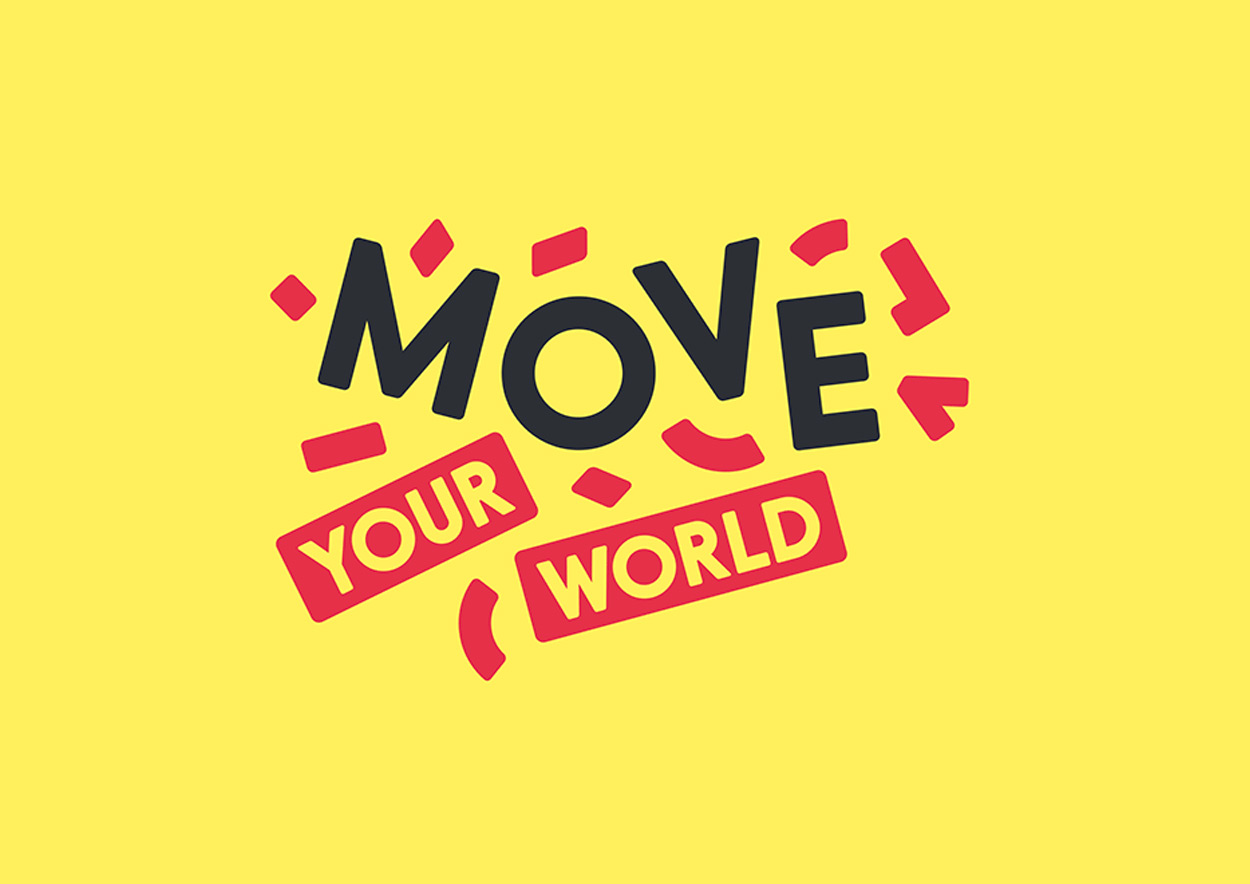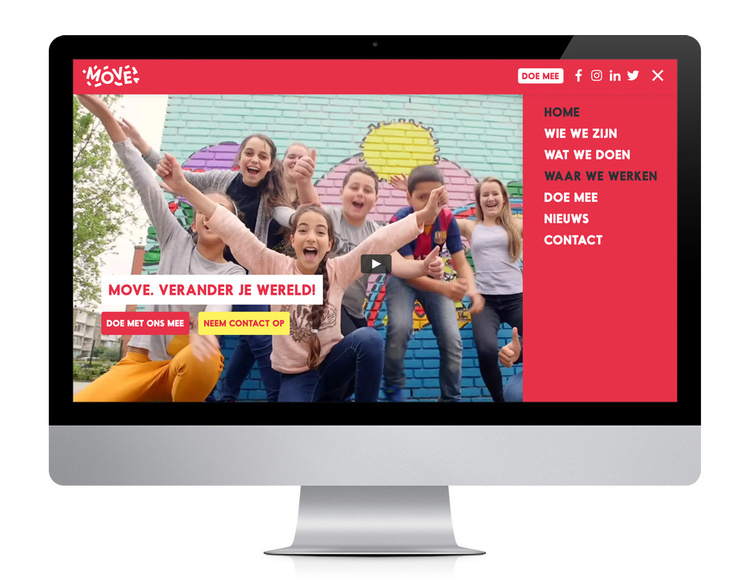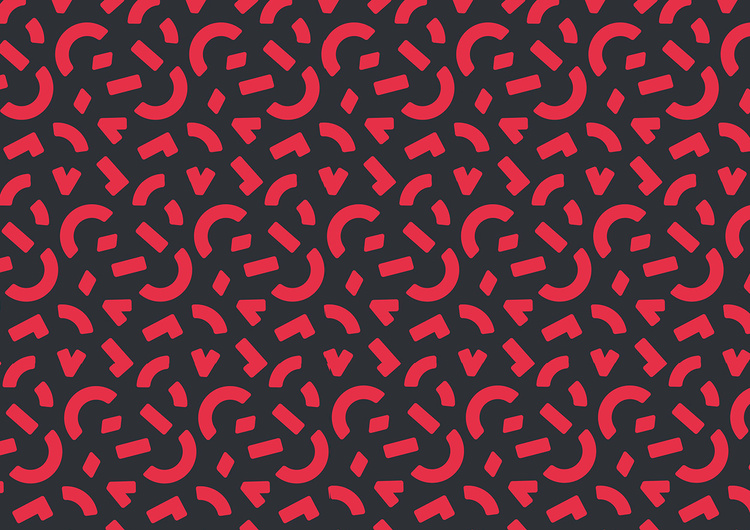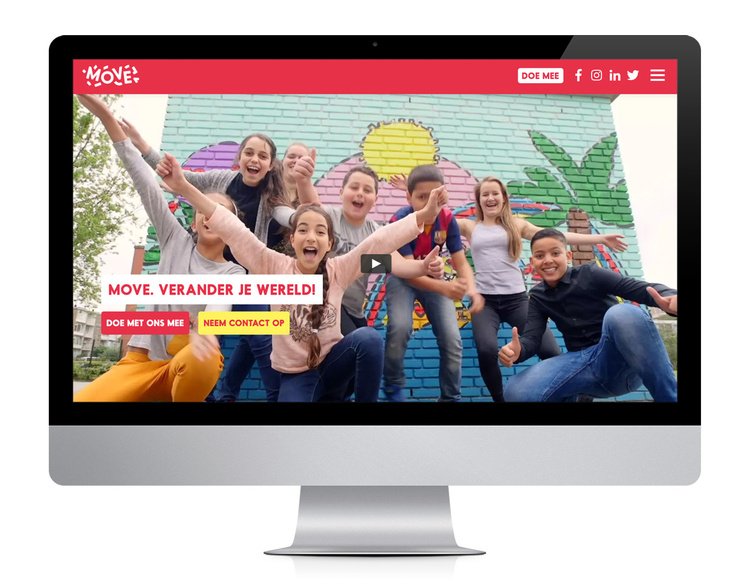
A playful yet functional identity for Stichting MOVE. This non-profit organisation offers a continuous learning line of social projects for children and young people aged 10 to 16 who have fewer opportunities than their peers.